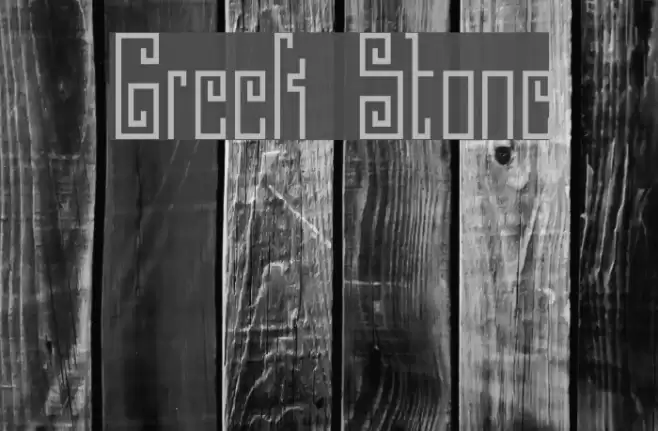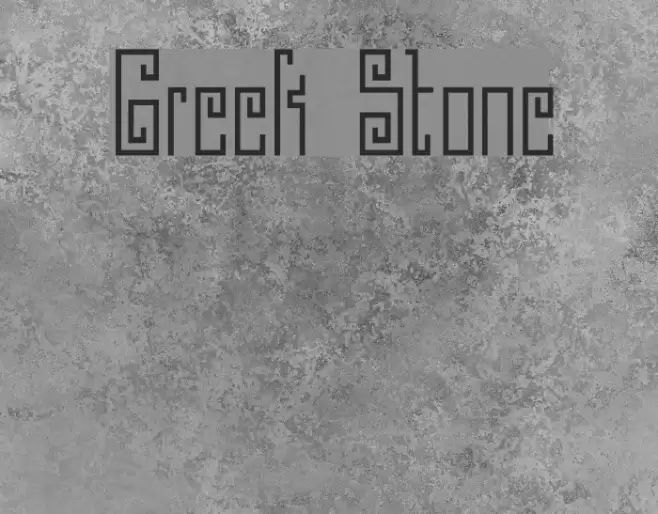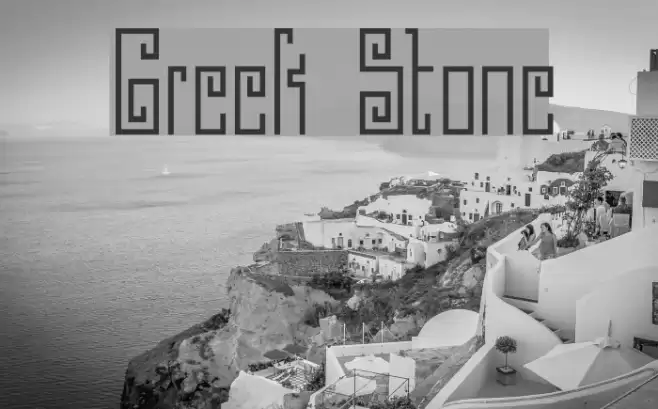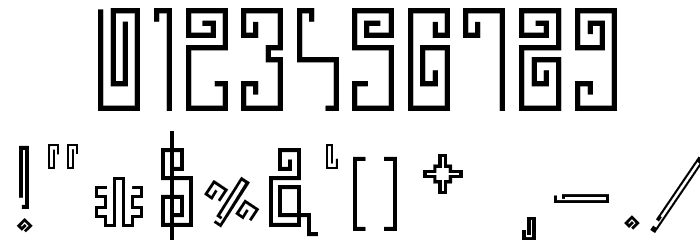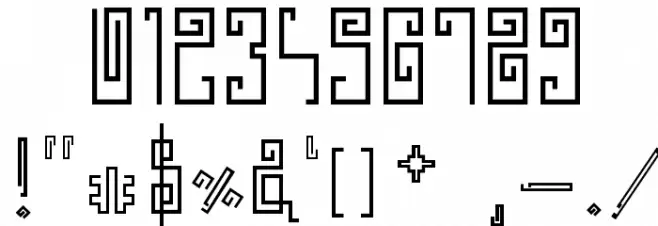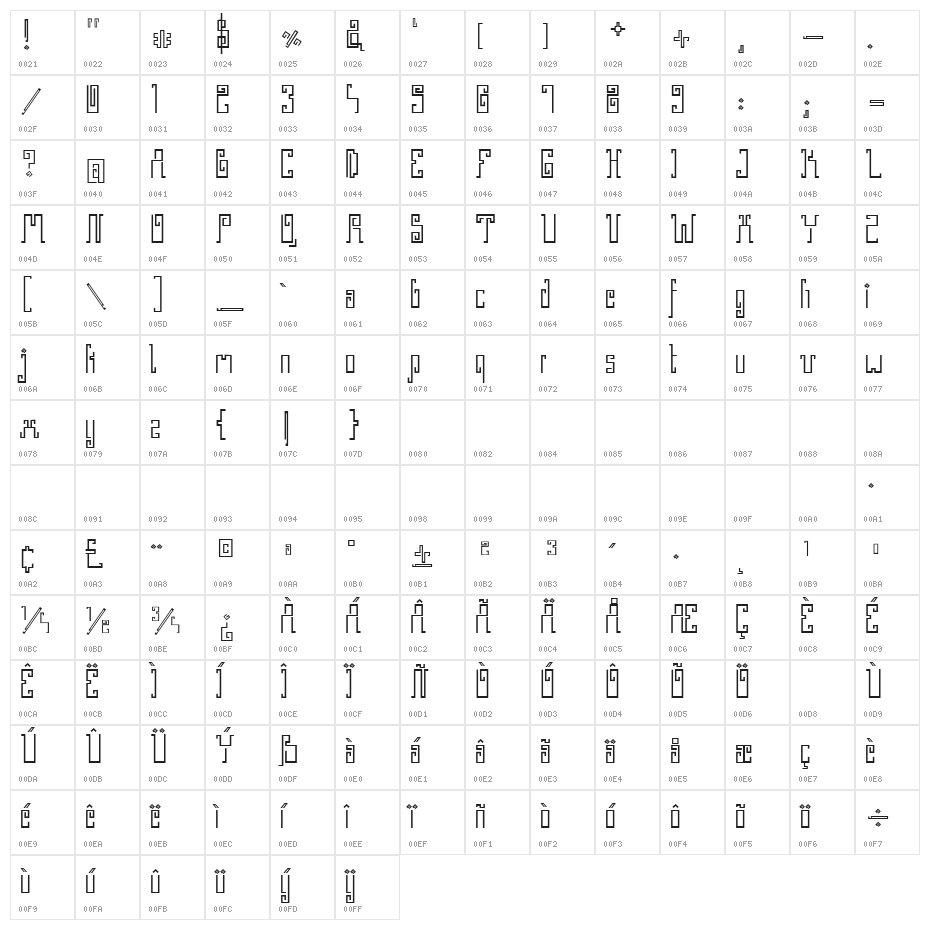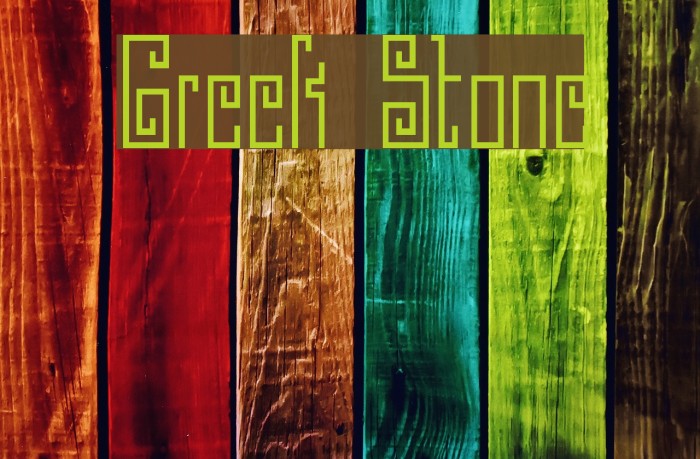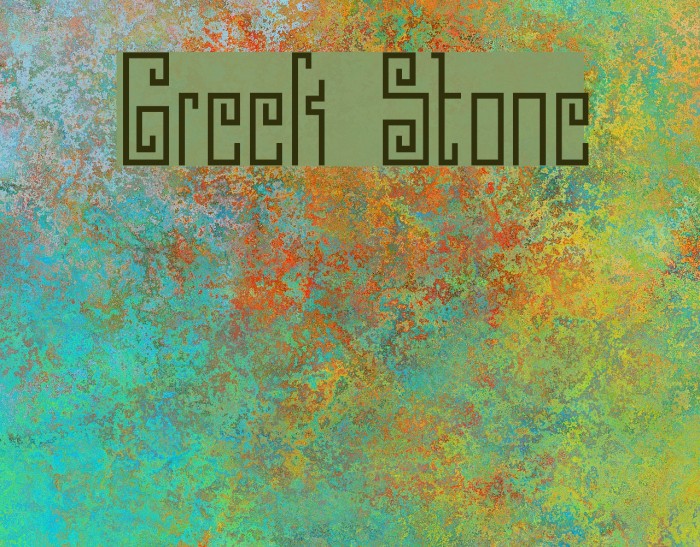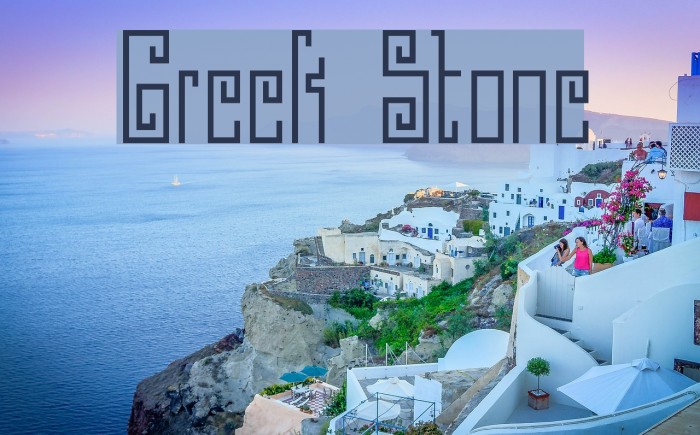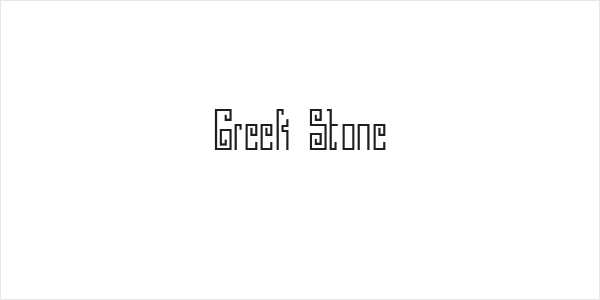
Greek Stone Font
Greek Stone Description
This font features a unique, geometric design with a distinct Greek-inspired aesthetic. The characters are constructed with bold, angular lines that form intricate patterns, reminiscent of ancient Greek stone carvings. Each letter is crafted with a sense of symmetry and balance, creating a cohesive and visually striking typeface. The uppercase and lowercase letters maintain a consistent style, with the uppercase being more elaborate. Numbers and special characters follow the same design principles, ensuring uniformity across all glyphs. The font's decorative nature makes it ideal for projects that require a touch of historical or cultural flair.
A geometric, Greek-inspired font with bold, angular lines and intricate patterns from Uncategorized fonts.
- Proposed Projects: Ideal for historical or cultural projects, logos, posters, and themed event invitations.
- Use Case: Logos, Posters, Headlines